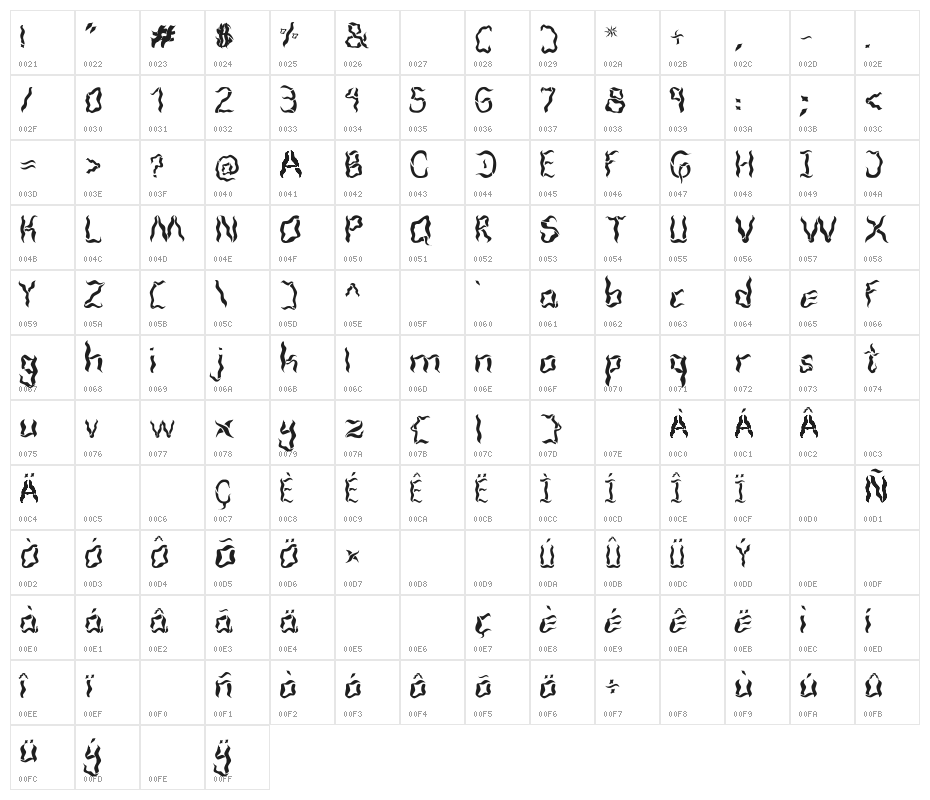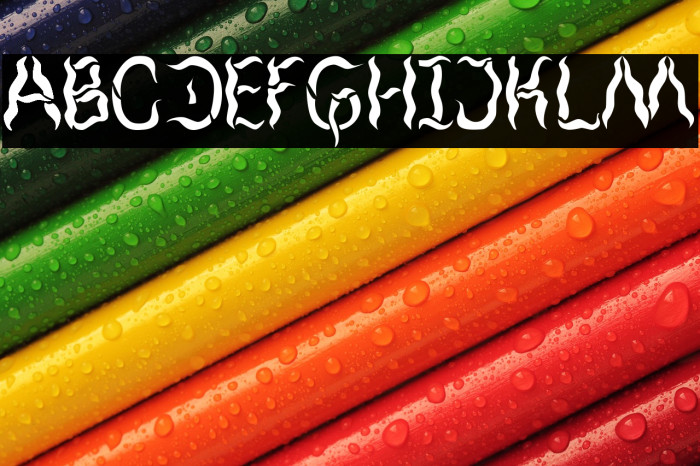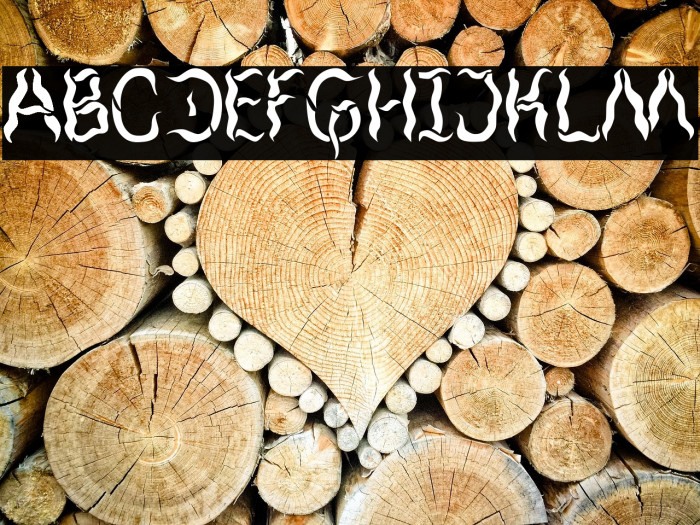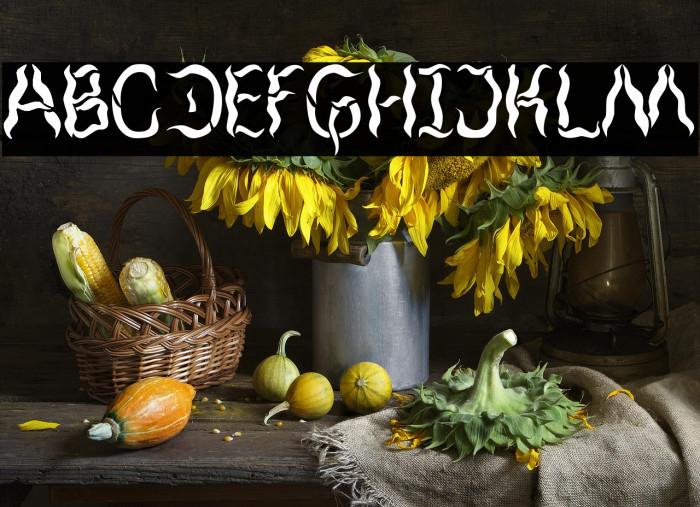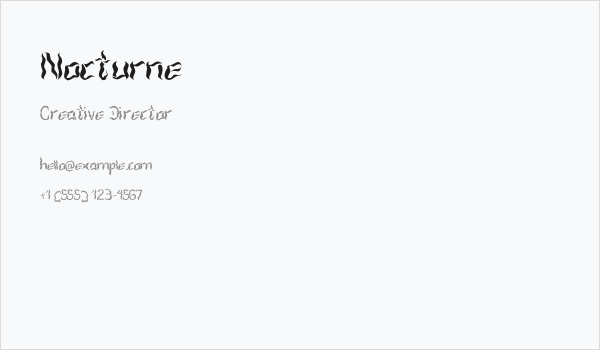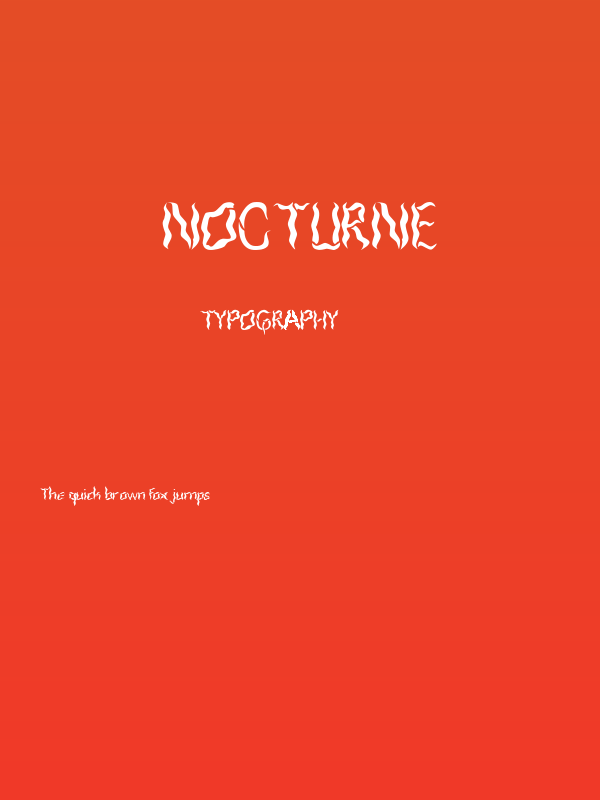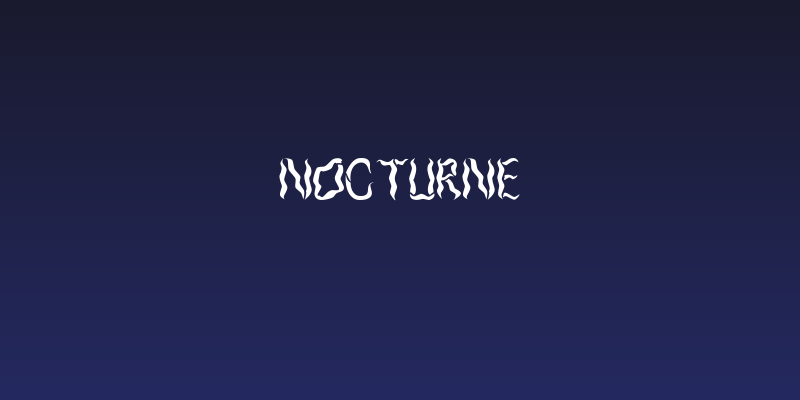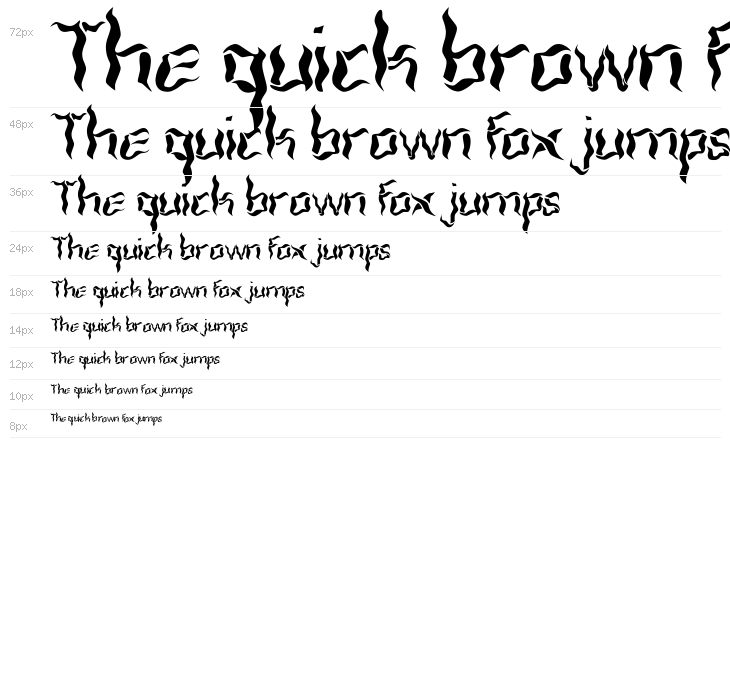
Nocturne Font
Nocturne Description
This font features a highly decorative and artistic style, characterized by its unique, flame-like edges and irregular shapes. The letters have a flowing, organic appearance, reminiscent of calligraphy with a modern twist. The uppercase and lowercase letters maintain a consistent style, with each character exhibiting a dynamic and fluid form. The numbers and special characters are equally stylized, adding to the overall cohesive look. This font's distinctiveness makes it stand out, offering a bold and creative aesthetic.
| Proposed Projects | Ideal for creative projects such as album covers, posters, branding for edgy or artistic brands, and unique event invitations. |